Design Your Own SwapWear Patches with This New Year Font
Introduction In an era where personal expression is everything, static clothing just doesn’t cut it anymore. I recently came across the SwapWear modular jacket system in this viral video, which allows you to swap out the entire back panel (patch) of your jacket in seconds. But to truly stand out at the 2026 countdown, you need a custom visual. That is where a high-quality New Year Font comes into play. By combining modular fashion with a professional New Year Font, you can turn your jacket into a wearable piece of art.
The Secret Sauce: Refont.ai’s New Year Font Generator
To recreate the high-end artist vibes seen in the SwapWear video, you don't need a degree in graphic design. You just need the right New Year Font generator. Refont.ai offers a specialized AI tool that creates stunning, festive typography instantly. Whether you want 3D effects or glowing lights, this New Year Font tool does the heavy lifting for you.
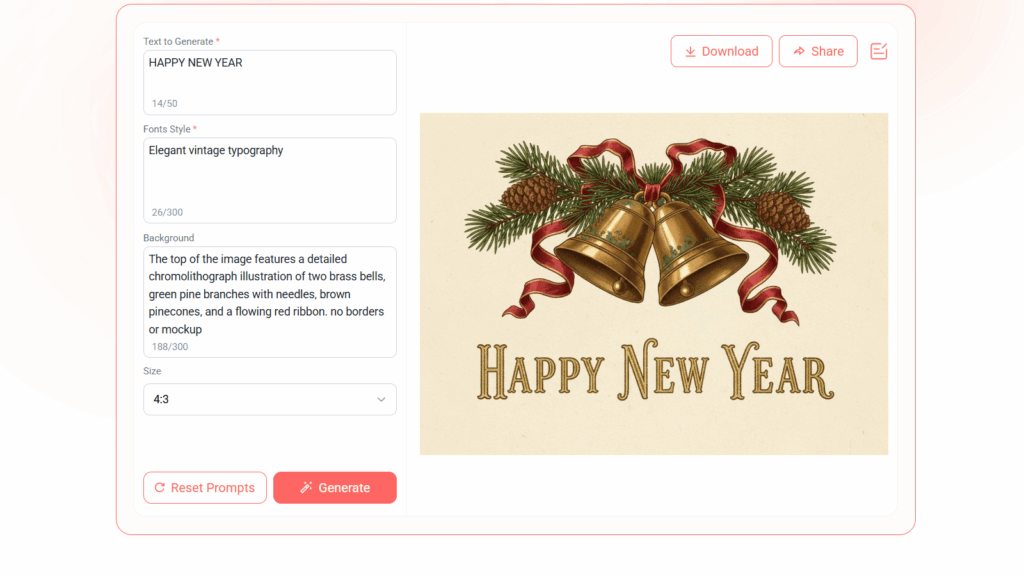
Choose Your Vibe: Popular New Year Font Styles
Refont.ai provides several aesthetics to ensure your New Year Font matches your personal style:
- Golden Balloon New Year Font: Perfect for high-energy parties, featuring a 3D metallic texture.
- Sparkling Firework New Year Font: A high-contrast design where the letters look like burning sparklers.
- Cozy Neon New Year Font: A sleek, glowing script that gives your jacket a modern, cyberpunk look.
- Vintage Retro New Year Font: For those who prefer a classic, 1900s-style holiday aesthetic.
Step-by-Step: From New Year Font to Custom Patch
Step 1: Select Your Favorite New Year Font Head over to the Refont.ai New Year Font gallery. Browse through the AI-generated styles until you find a New Year Font that resonates with your outfit's color palette.
Step 2: Generate Your Custom Text Type your message—like "CHEERS 2026" or "LIVE LOUD"—into the generator. The AI will apply the complex textures of your chosen New Year Font to your specific words, creating a unique visual.
Step 3: Export the New Year Font Artwork Once you are satisfied with the preview, download the high-resolution image of your New Year Font design. This file is now ready for printing.
Step 4: Attach to Your SwapWear Jacket Print your New Year Font design onto a canvas or fabric patch. Following the method shown in the SwapWear tutorial, zip the new patch onto your jacket. Your custom New Year Font is now the centerpiece of your look!
Why Use a Professional New Year Font for Modular Fashion?
Using a dedicated New Year Font makes your DIY project look like a premium designer collaboration. Generic text lacks the lighting and depth that a specialized New Year Font provides. By swapping patches, you can use a different New Year Font for every night of the holiday season without ever buying a new coat.